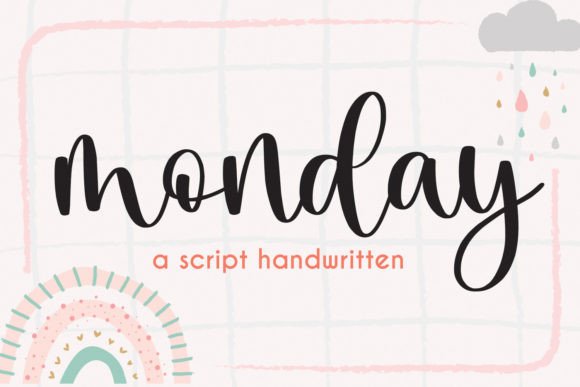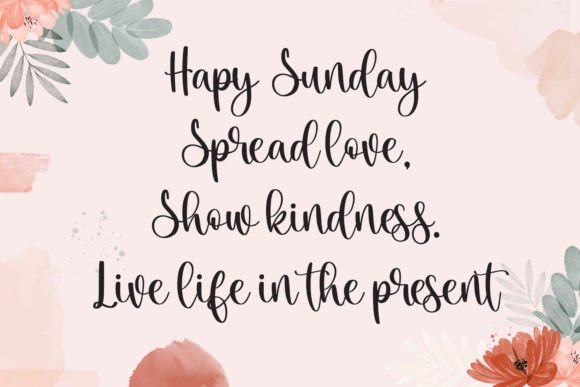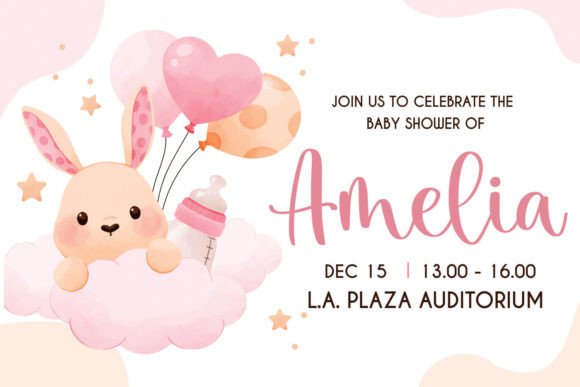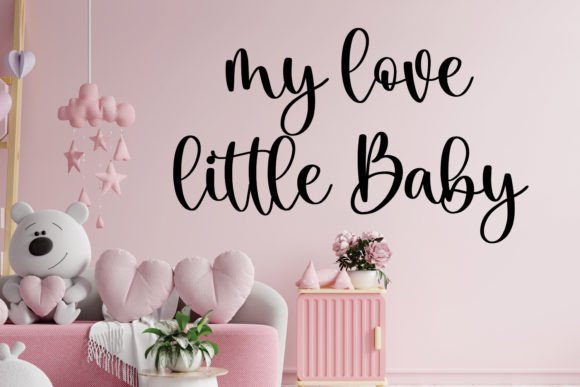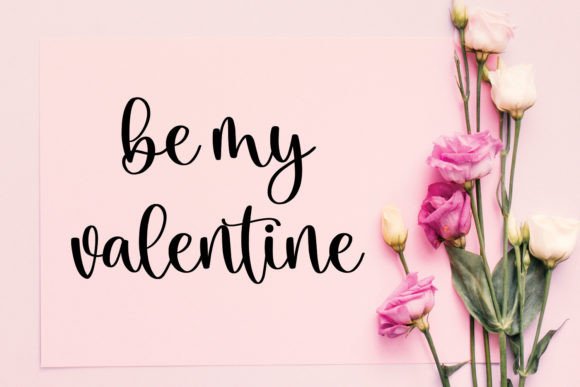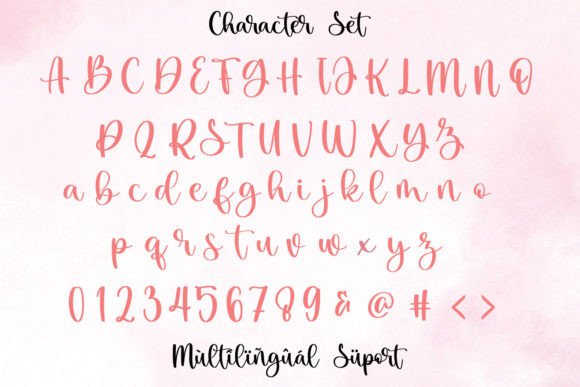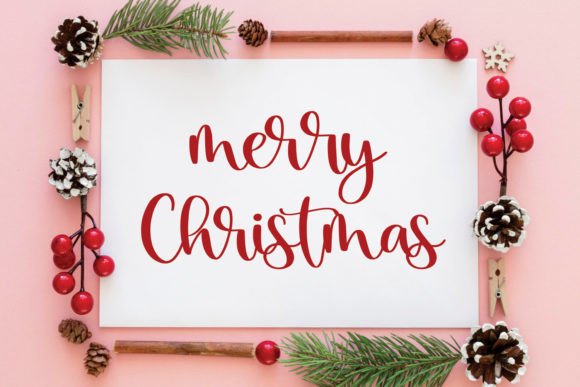
Monday Font
Monday font is a delightful representation of a cute script handwritten style that exudes an irresistible charm. Whether used in invitations, greeting cards, or any design that calls for a touch of adorable elegance, Monday font adds a dose of sweet charisma that’s hard to resist.